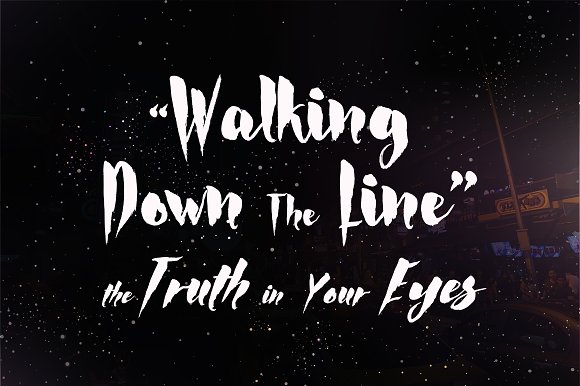
Calligraphy Script Font is a lovely and delicate script font that exudes elegance and class. It was particularly crafted for those who need a beautiful and refreshing look to their designs.
Designer Name: | FreshTypeINK |